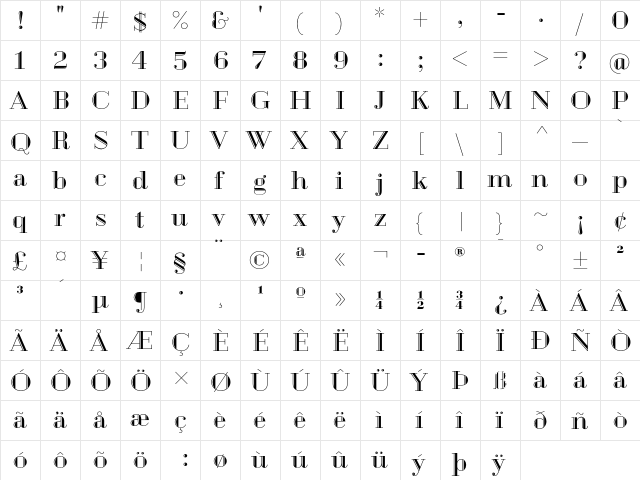
Geotica Three Engraved
| Style | Engraved |
| Foundry | Jos Buivenga |
| Designer | Jos Buivenga |
Design Context for Geotica Three Typeface
Geotica Three brings ornamental detail and strong personality to headlines and identities, where visual impact matters more than quiet functionality.
Font Pairing: Pair with a clean neutral sans-serif for body copy to let Geotica Three's character lead without overwhelming the composition.
Pro Tip: Use Geotica Three exclusively at display sizes — it was designed to be seen, not read at length. Let a neutral companion handle body copy.